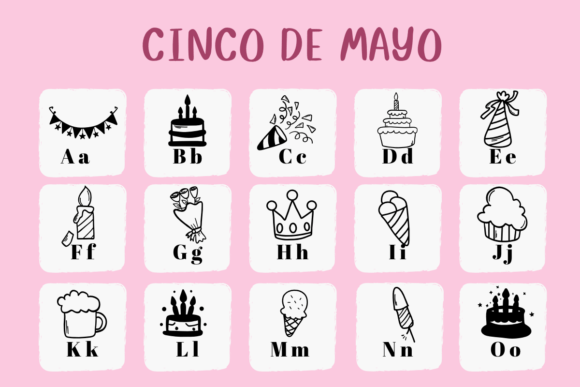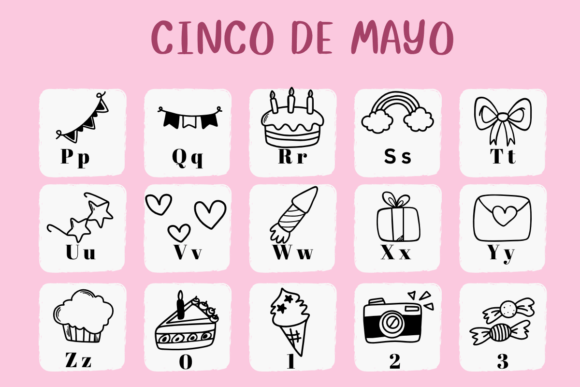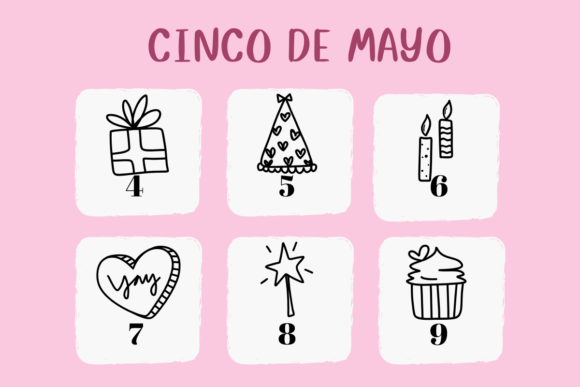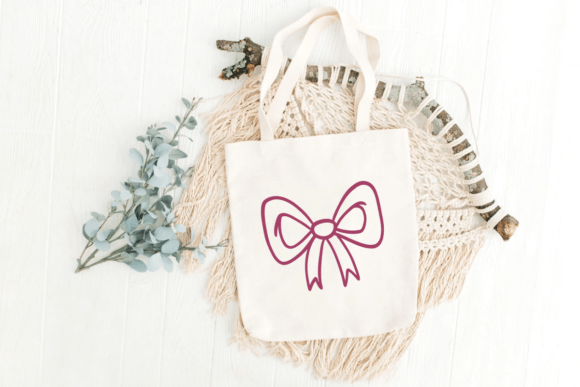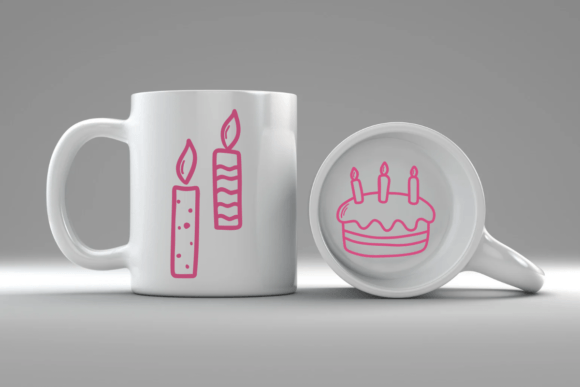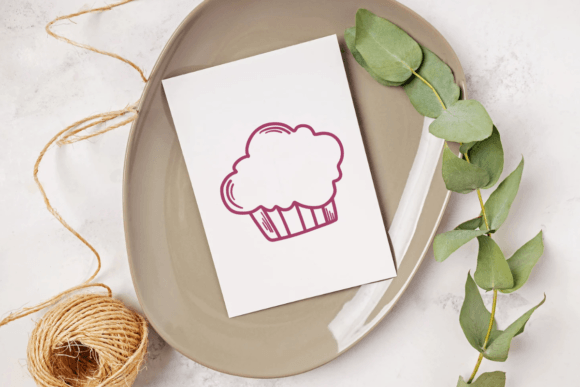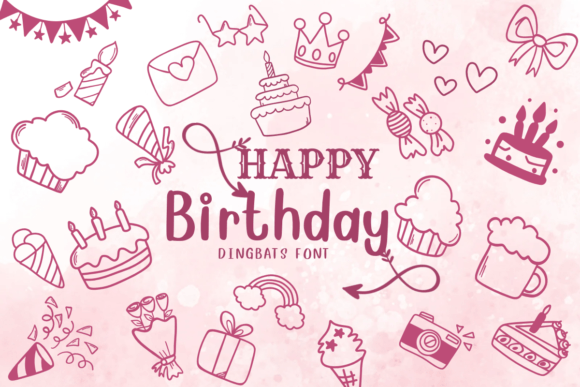
Happy Birthday Font: Add a Festive Touch to Your Creative Projects
Are you looking for a font that can add a celebratory feel to your creative projects? Look no further than the Happy Birthday font! This dingbats font is specifically designed with a festive theme, making it perfect for a variety of projects, from wedding invitations to DIY crafts and decorations.
What is Happy Birthday Font?
Happy Birthday font is a unique and fun dingbats font that features festive and celebratory characters. The font is designed to resemble traditional birthday decorations, complete with balloons, cakes, and other party-themed elements. With its playful and cheerful design, Happy Birthday font is sure to add a touch of excitement and joy to any project.
Uses for Happy Birthday Font
The Happy Birthday font is incredibly versatile and can be used in a wide range of creative projects. Here are just a few ideas to get you started:
• Wedding Invitations: Add a touch of whimsy and romance to your wedding invitations with Happy Birthday font. You can use it to create custom monograms, decorative borders, or even a special message to your guests.
• DIY Crafts: Happy Birthday font is perfect for DIY crafters who love to create handmade cards, gift tags, and other paper crafts. You can use the font to add a personal touch to your creations and make them truly special.
• Decorations: Use Happy Birthday font to create custom decorations for your next party or celebration. You can create banners, garlands, and other decorative elements that will add a festive touch to your event.
• Logos: If you’re a designer or business owner looking for a unique and memorable logo, Happy Birthday font could be the perfect choice. The font’s playful design makes it ideal for businesses that want to convey a sense of fun and celebration.
Benefits of Using Happy Birthday Font
There are many benefits to using Happy Birthday font in your creative projects. Here are just a few:
• Customizable: With Happy Birthday font, you can customize your projects to fit your unique style and needs. You can adjust the size, color, and other elements of the font to create a look that’s all your own.
• Time-Saving: Using Happy Birthday font can save you time and effort in your design projects. The font’s pre-designed characters and symbols mean you don’t have to spend hours creating custom elements from scratch.
Tips for Using Happy Birthday Font
Here are a few tips for using Happy Birthday font in your creative projects:
• Experiment with Colors: Happy Birthday font looks great in a variety of colors, so don’t be afraid to experiment and find the perfect hue for your project.
• Mix and Match: Combine Happy Birthday font with other fonts and design elements to create a unique and eye-catching look.
• Pay Attention to Scale: Make sure to adjust the size of Happy Birthday font to fit your project’s needs. You can use the font in large or small sizes, depending on the effect you’re trying to achieve.